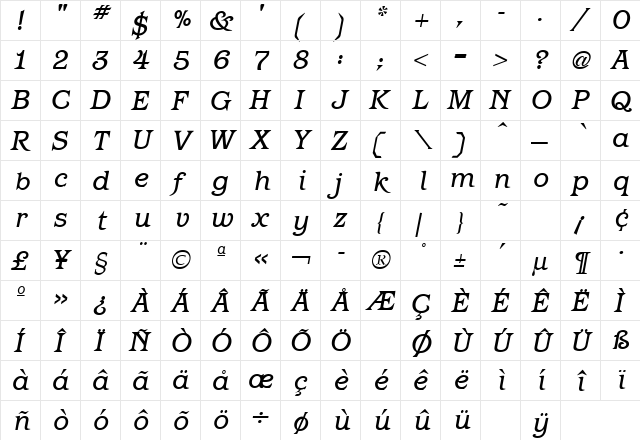
Barcelona Italic
Design Context for Barcelona Typeface
Barcelona is a composed and adaptable typeface that performs quietly and consistently across a wide range of design contexts. The slanted form adds forward momentum and visual energy.
Pro Tip: Try Barcelona for annotation and caption copy alongside an upright companion — the contrast in angle creates a dynamic but ordered typographic system.